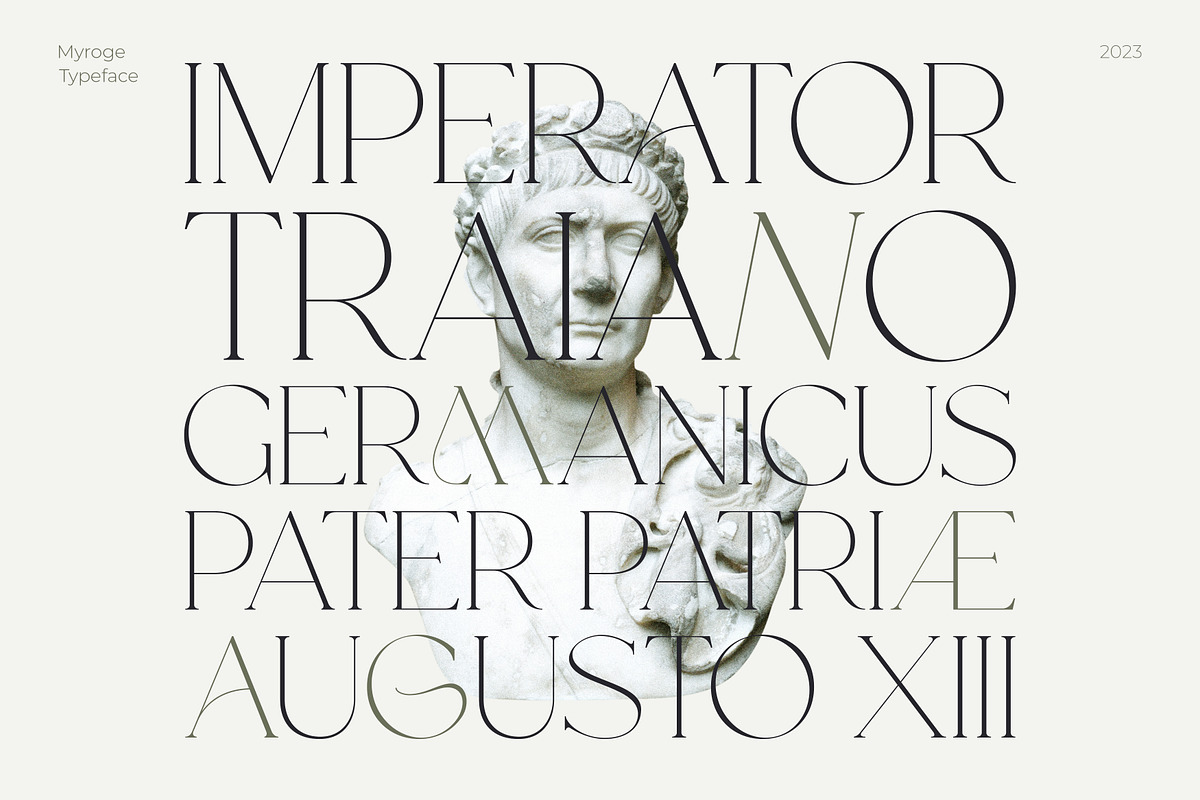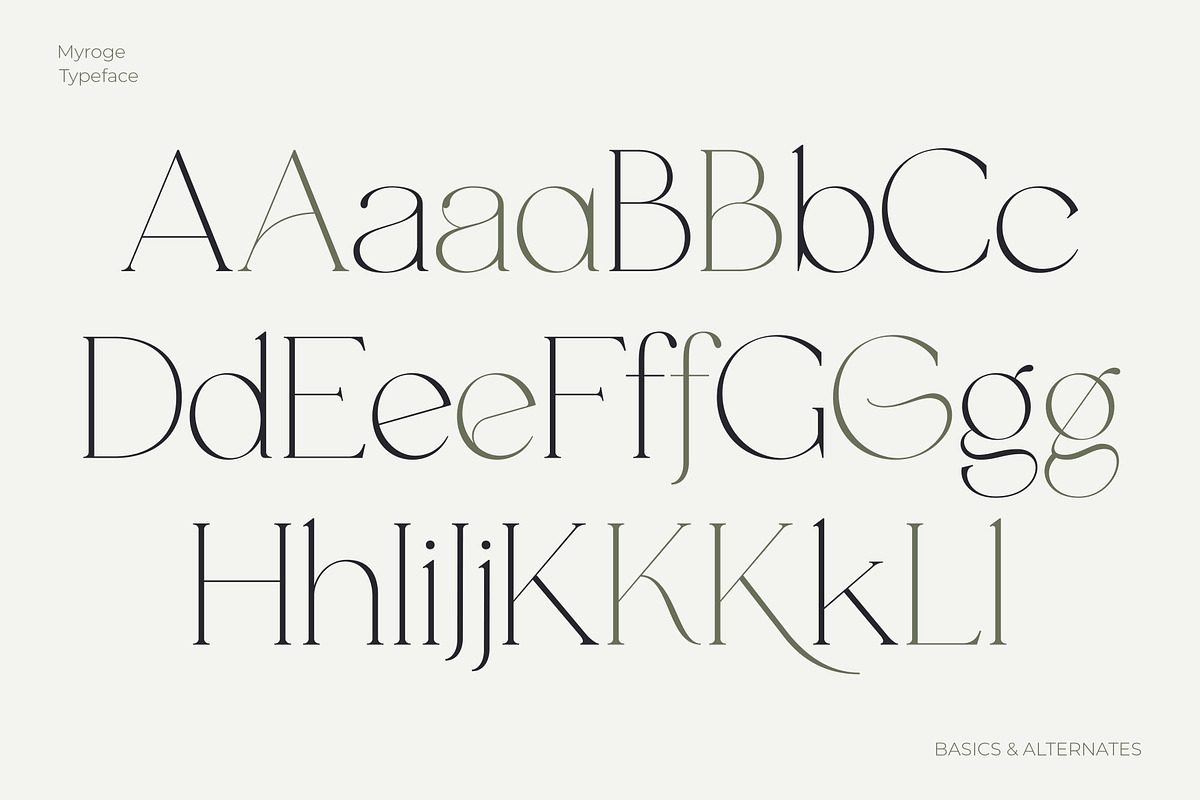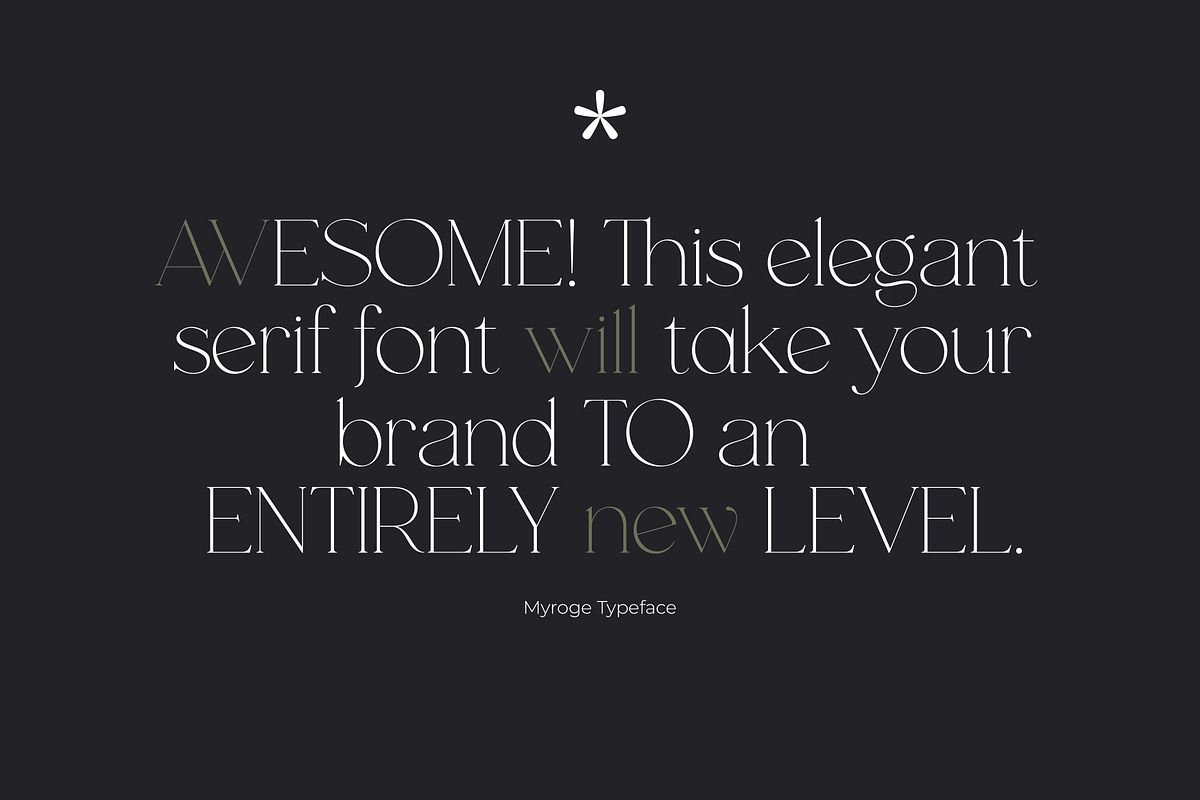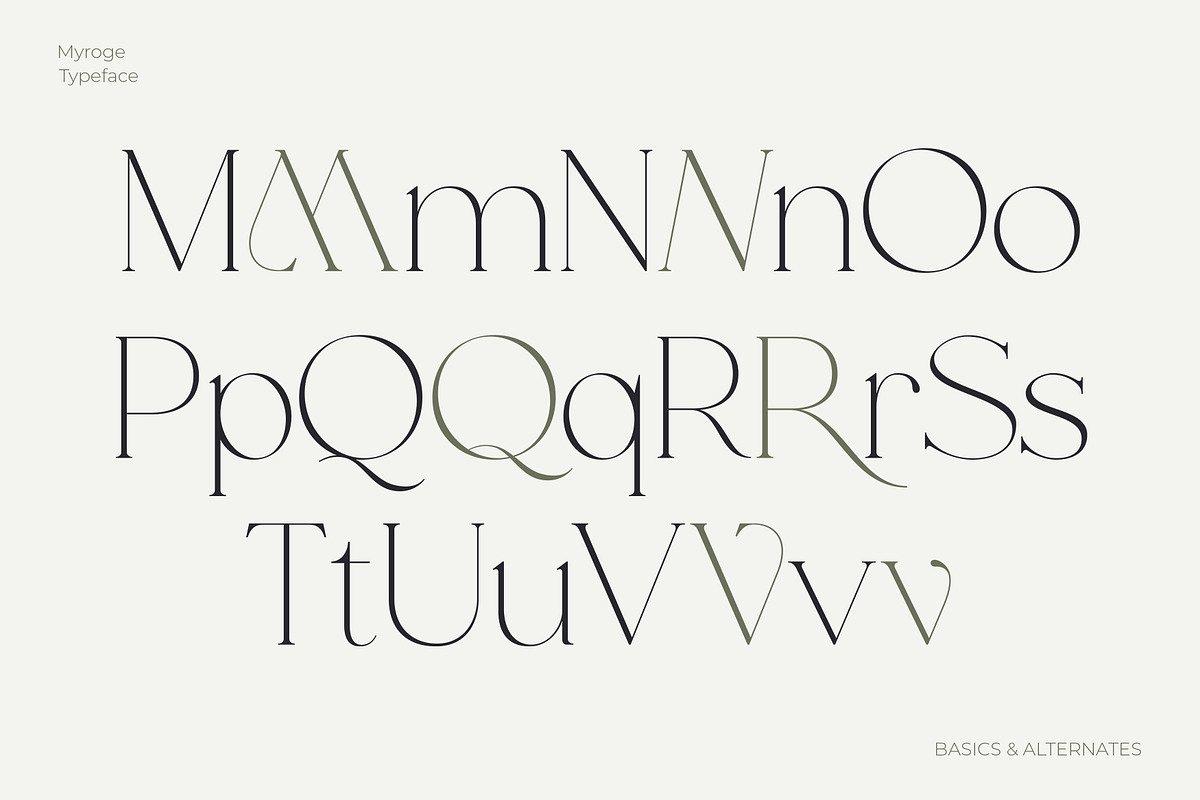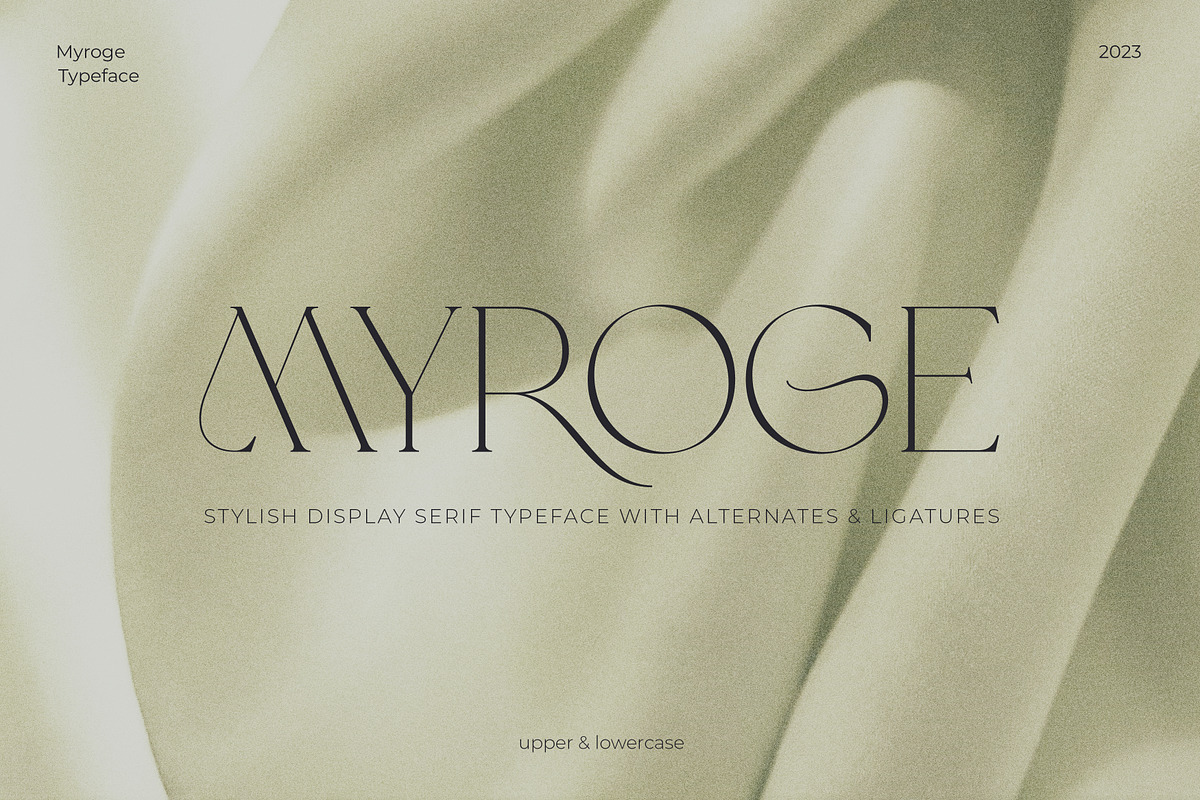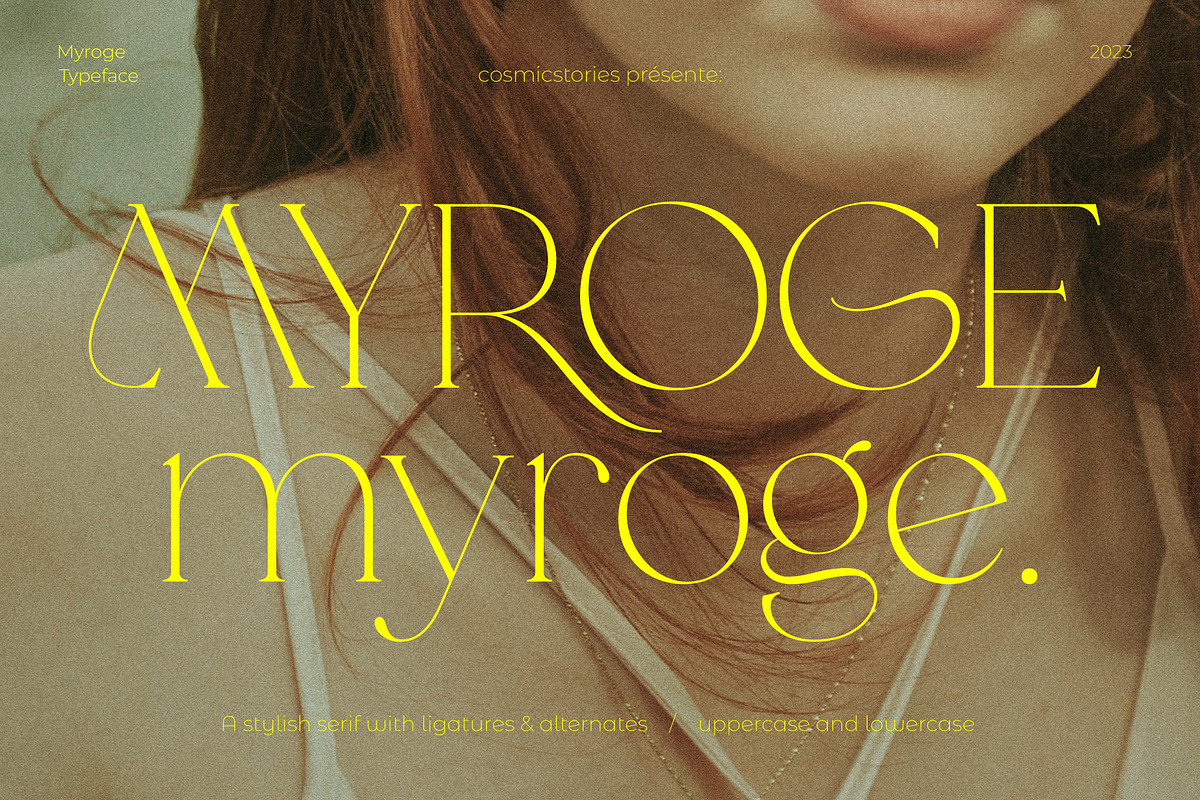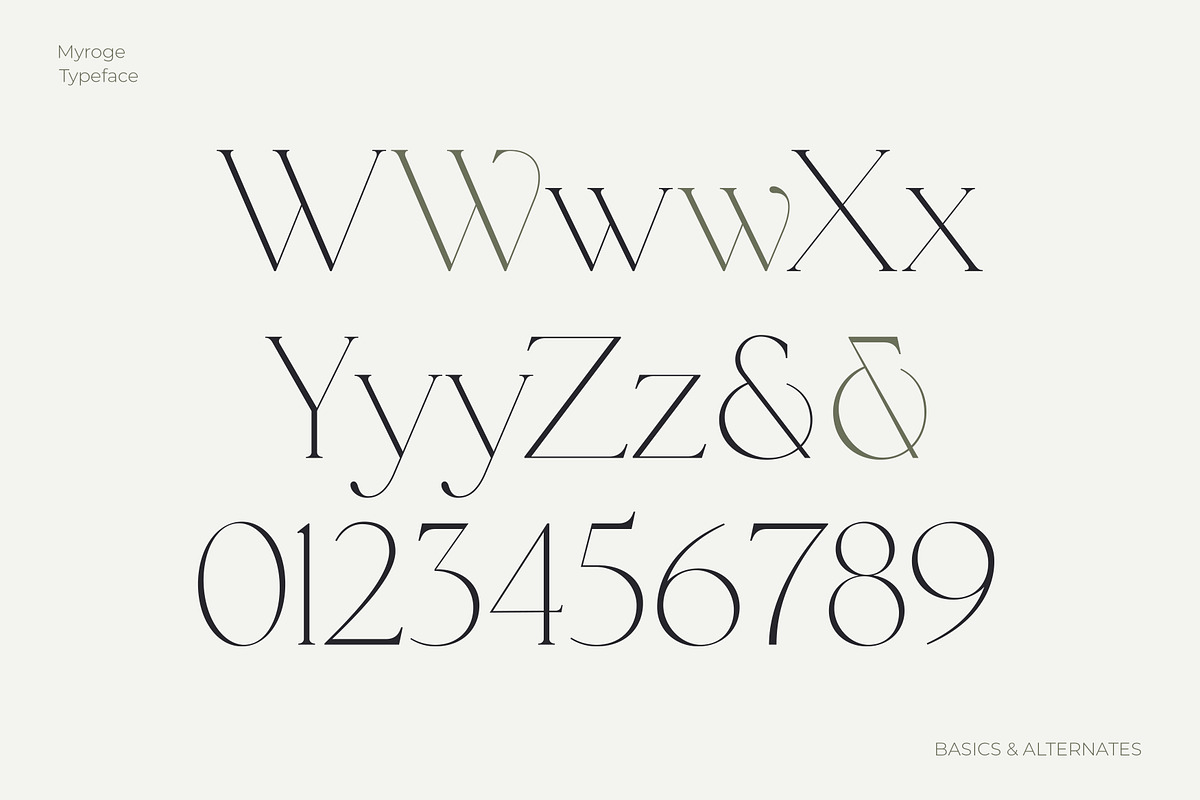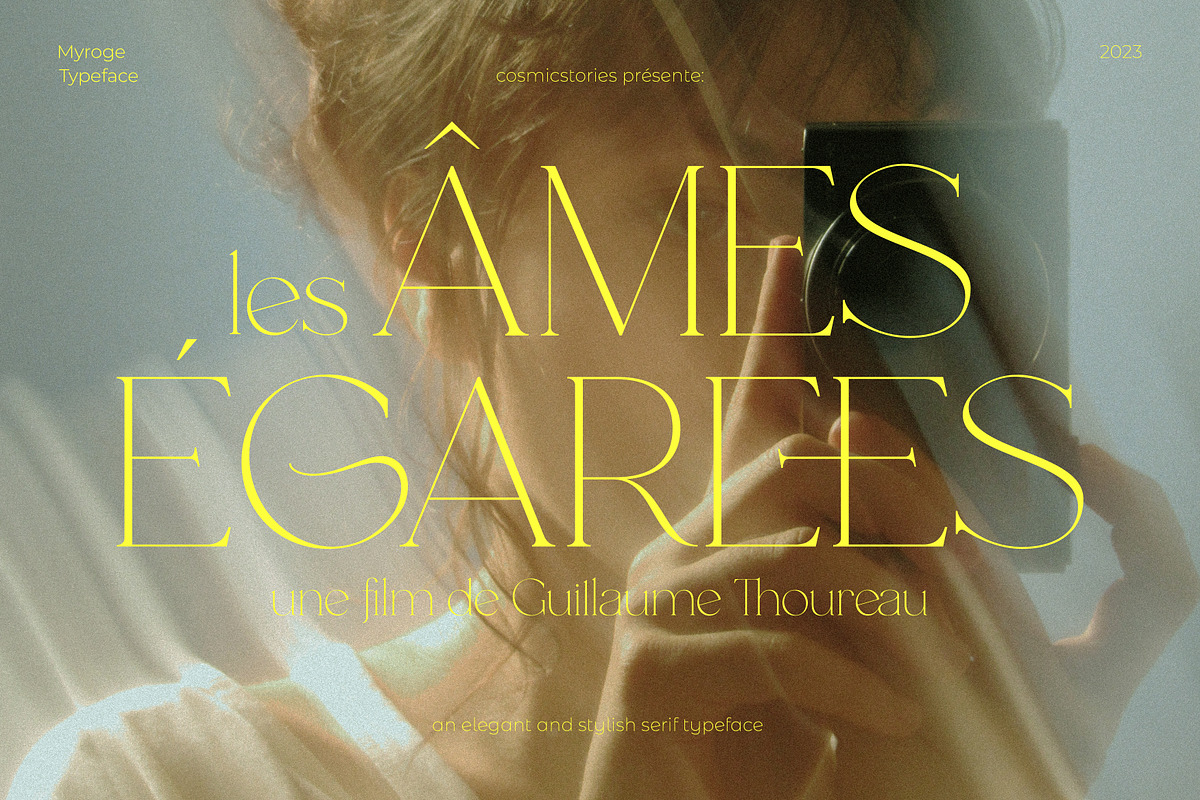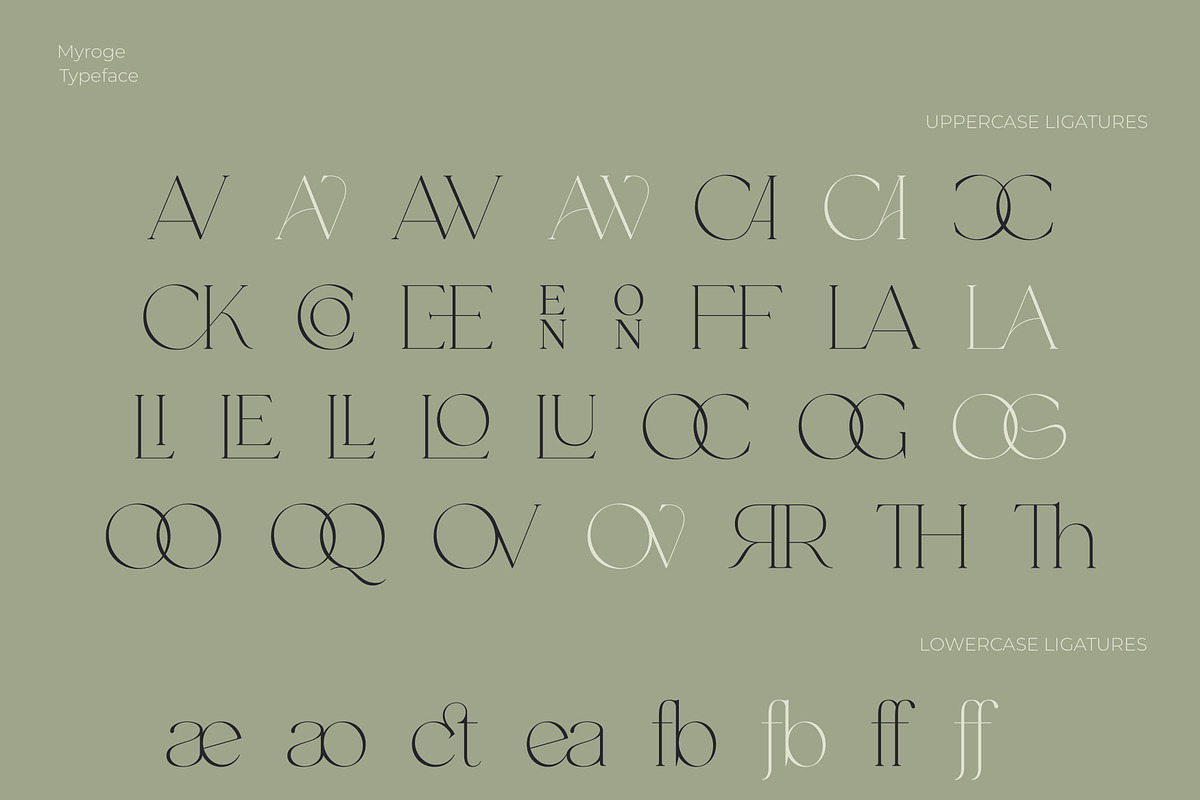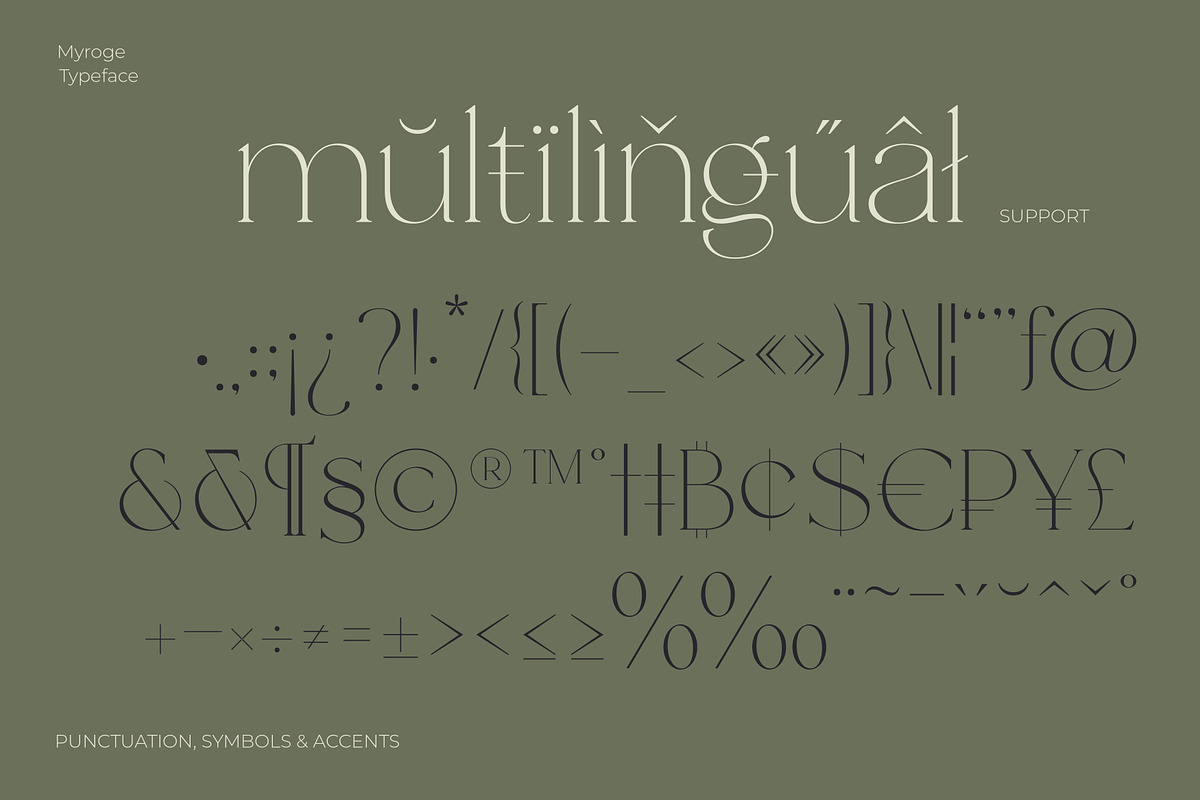
MYROGE elegant & stylish serif
CosmicStories introducing MYROGE, an extremely elegant and fragile serif font with beautiful ligatures and alternate glyphs. This typeface includes multilingual support, and it will be perfect to upgrade your brand to an entirely new level.
- Uppercase basics, alternates & ligatures
- Lowercase basics, alternates & ligatures
- Punctuation, symbols and accents
This typeface is perfect any project as logotype design, branding, cosmetic brands, wedding invitations, suite and stationery, greeting cards, , social media promo, quotes, banners and everything you can imagine!